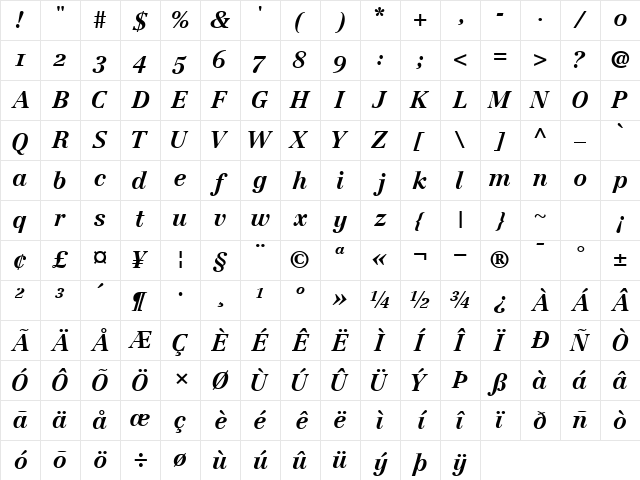
CenturyRepriseOSSSK BoldItalic
Design Context for CenturyRepriseOSSSK
CenturyRepriseOSSSK is a composed and adaptable typeface that performs quietly and consistently across a wide range of design contexts. The slanted form adds forward momentum and visual energy. Its bold stroke weight gives it real presence on the page.